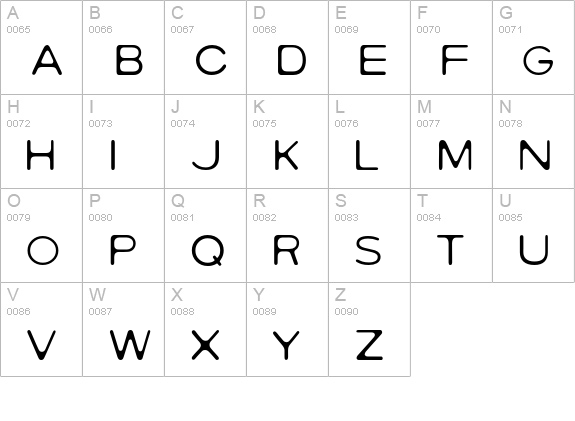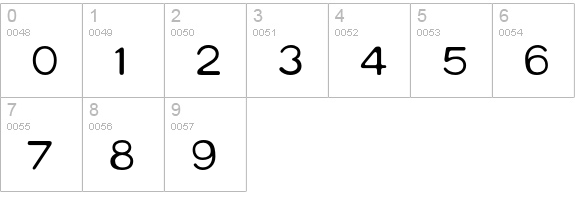
ReboundDemi Font Details
Introducing ReboundDemi, an exquisite font that effortlessly combines elegance and versatility. With its clean lines and striking curves, this font is perfect for a wide range of design projects. Whether you're creating a sophisticated logo, designing a stylish website, or crafting eye-catching marketing materials, ReboundDemi is sure to make a lasting impression. What sets ReboundDemi apart is not just its aesthetic appeal, but also its accessibility. This font is generously offered for free, allowing designers of all backgrounds and budgets to access its stunning features. Now, you can elevate your designs without breaking the bank. To get your hands on this remarkable font, simply head over to FontsMarket.com. There, you'll find ReboundDemi available for free download, making it easily accessible to anyone seeking to enhance their creative endeavors. Don't miss out on the opportunity to add this remarkable font to your collection. Whether you're a professional designer or a passionate amateur, ReboundDemi is a font that will take your projects to new heights. Embrace its elegance, harness its versatility, and unlock the potential to create truly captivating designs. Download ReboundDemi today, and let your creativity soar.